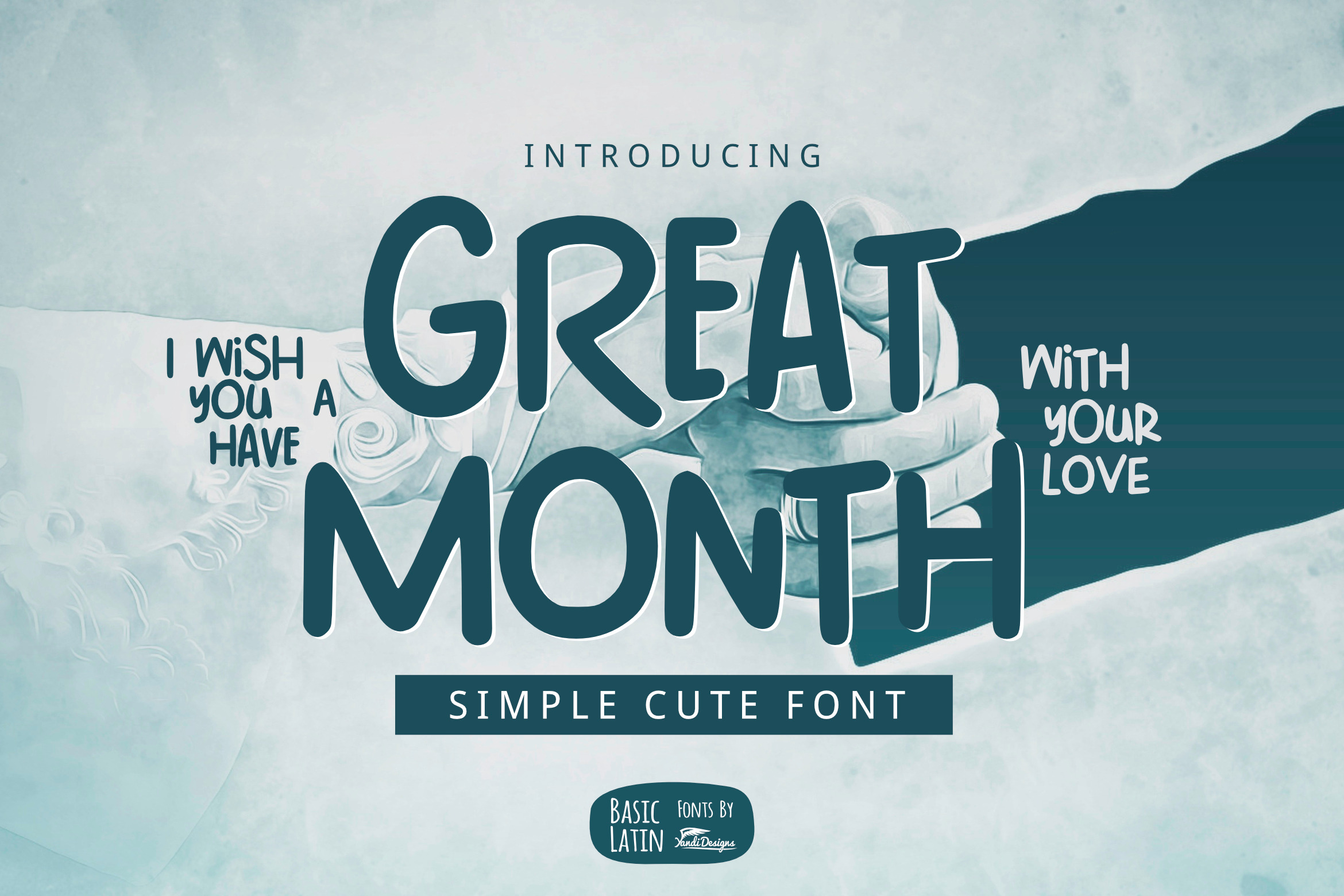
Great Month Font
Great Month font is lovely , cute, simple, playful, multipurpose handwritten font , suitable for many project children book, quotes, logo , heading , title etc.